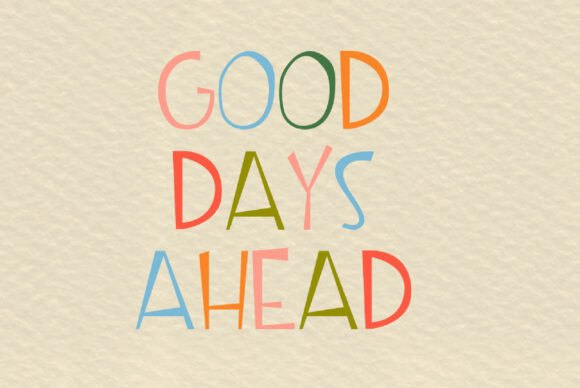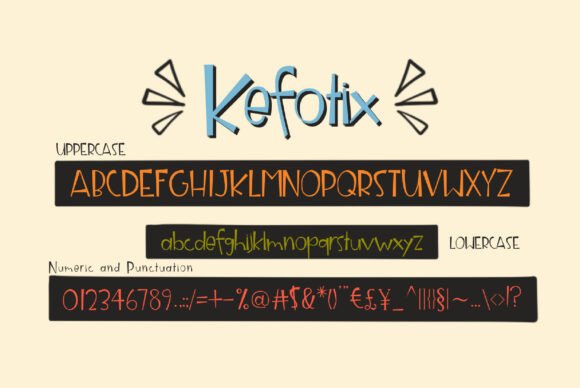
Introduction to Kefotix Font
Do you remember the thrill of creating with crayons and markers as a child? The feeling of freedom and imagination that came with putting pen to paper? The Kefotix Font brings back that same sense of joy and creativity to your designs, making it a valuable resource for any designer.
With its playful curves and uneven forms, the Kefotix Font adds a delightful, youthful touch to any project. Whether you’re working on kids’ party invitations, storybooks, or educational materials, this charming font is sure to bring a smile to your face and a sense of fun to your designs. Perfect for designers looking for a high-quality, free download to add some personality to their creative projects.
As a design resource, the Kefotix Font offers a transparent background and a range of styles that can be easily customized to fit your needs. Whether you’re working on a poster, social media graphic, or scrapbook page, this versatile font is sure to bring a touch of whimsy and personality to your work.
Key Features of Kefotix Font
- High-quality font design suitable for creative projects and various design resources.
- Features a clean and modern design, making it perfect for a variety of creative projects, from logos to brochures.
Honest Review: Kefotix Font
I recently had the chance to work with the Kefotix Font, and I must say it’s been a game-changer for my creative projects. With a high quality design and a transparent background, it’s perfect for any project that requires a clean and modern look.
- ✨ The font is incredibly versatile and can be used for a wide range of designs, from business cards to website headers.
- ✨ The high quality design ensures that it looks great on any screen, whether it’s a desktop computer or a mobile device.
Overall, I’m really impressed with the Kefotix Font. It’s a great resource for designers who are looking for a high quality, modern font that’s perfect for their creative projects. And the best part? It’s completely free to download!
Tips for Getting the Most Out of Kefotix Font
When using Kefotix Font, consider the following tips: use a transparent background to create a seamless design experience. Experiment with different font sizes and styles to add visual interest to your project. Take advantage of the high-quality design resource to elevate your creative project.
Common Use Cases for Kefotix Font
Kefotix Font is a versatile design resource that can be used in a variety of creative projects, including: branding materials, marketing campaigns, and digital presentations. Its high-quality design and transparent background make it an ideal choice for any project that requires a professional and visually appealing look.